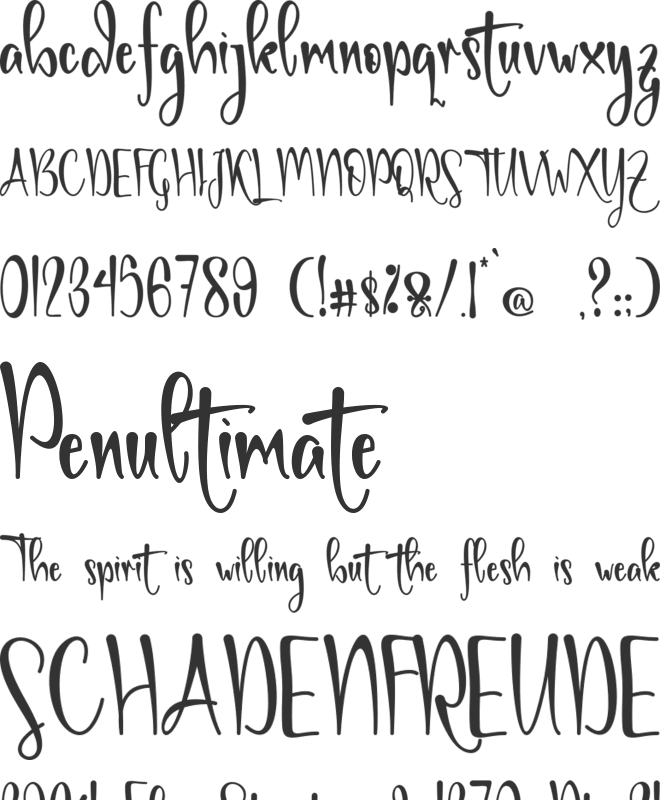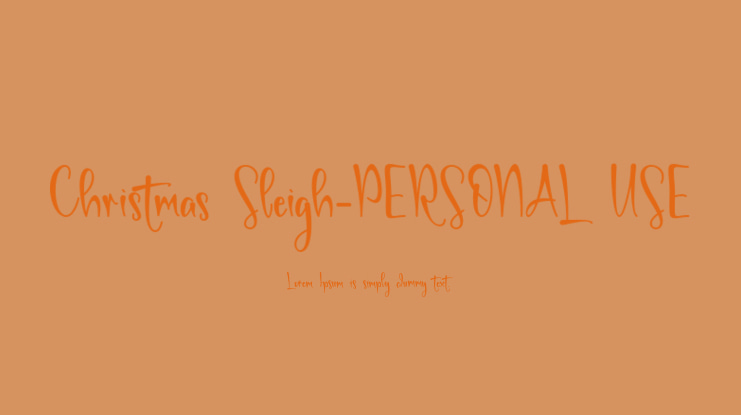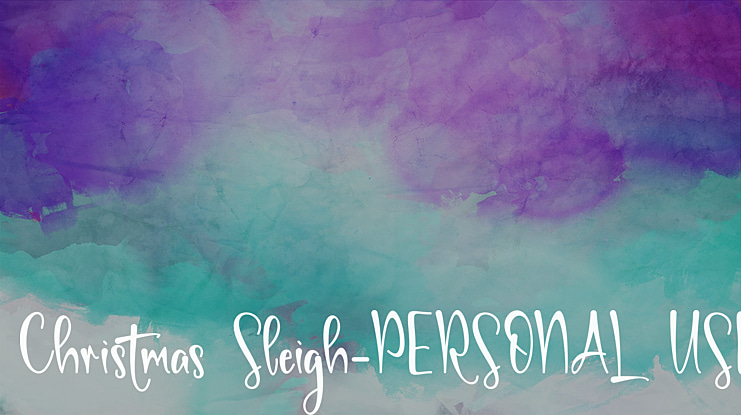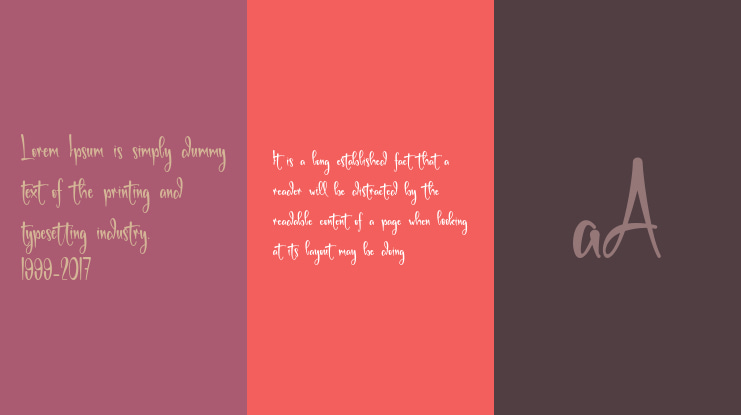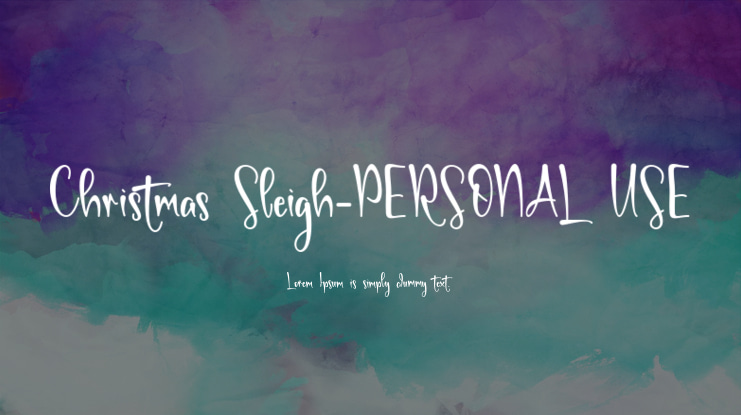
Christmas Sleigh-PERSONAL USE Font
Christmas Sleigh is the newest Christmas font from Arkrist Letter.
Christmas Sleigh is inspired by a festive, modern and elegant Christmas party.
Christmas Sleigh is perfect for invitations, greeting cards, t-shirt designs, product designs, etc.
Let's celebrate Christmas with the Christmas Sleigh font and make your Christmas even more festive!